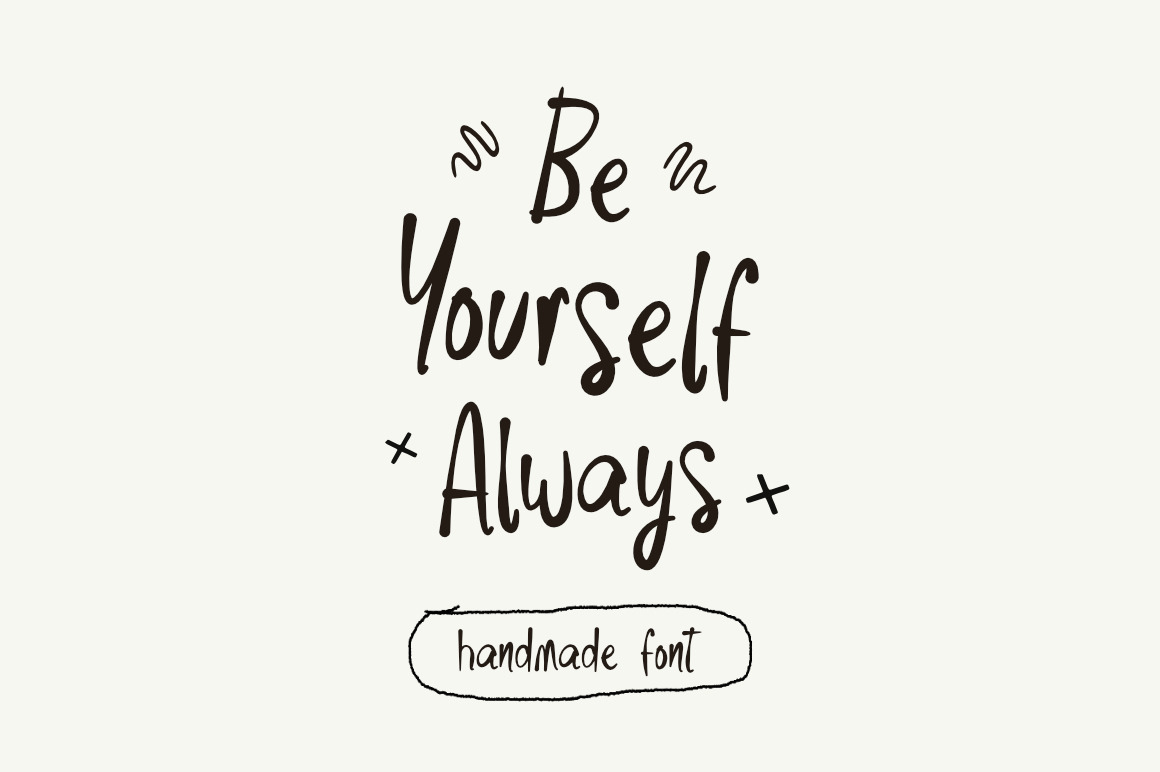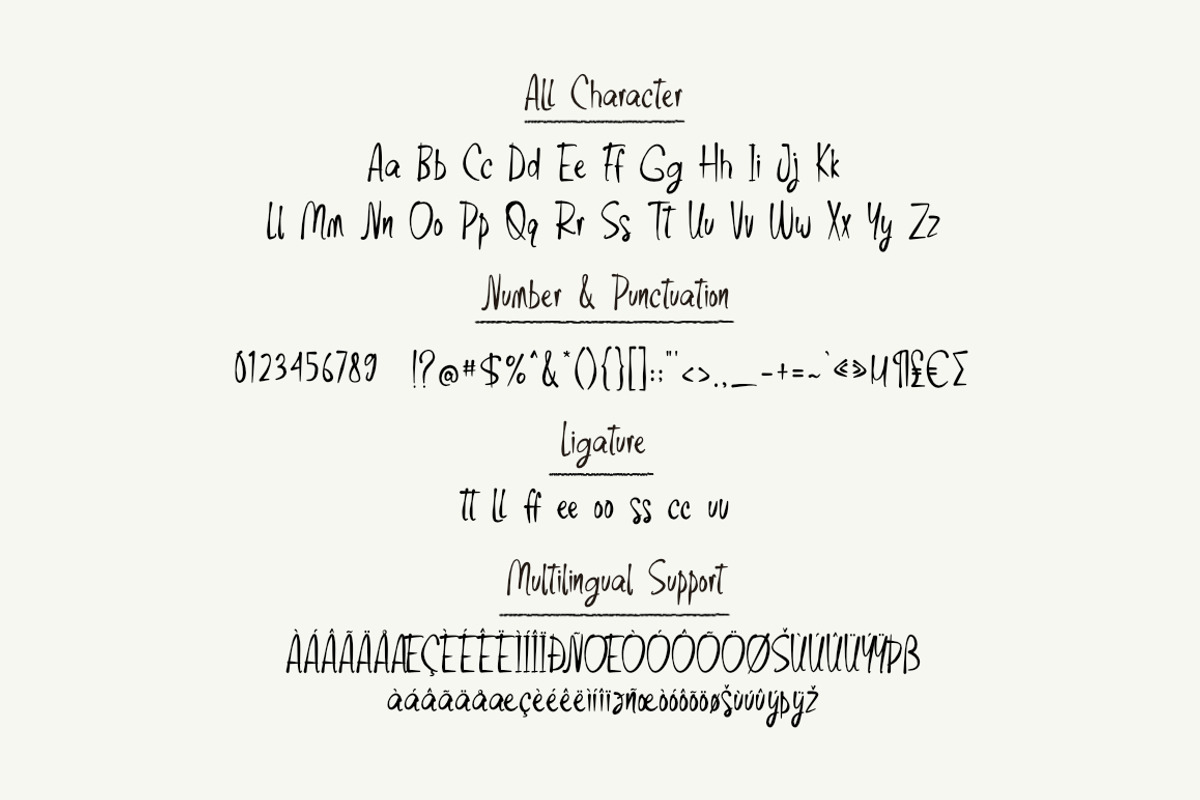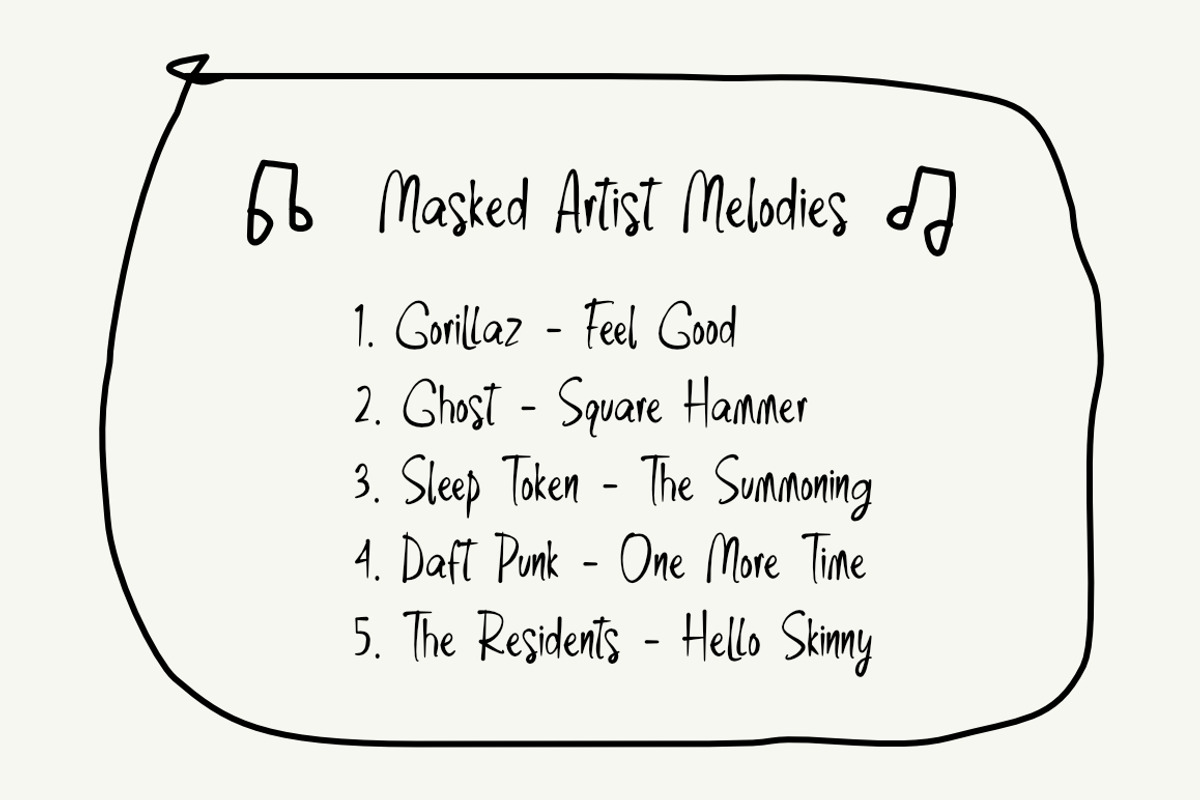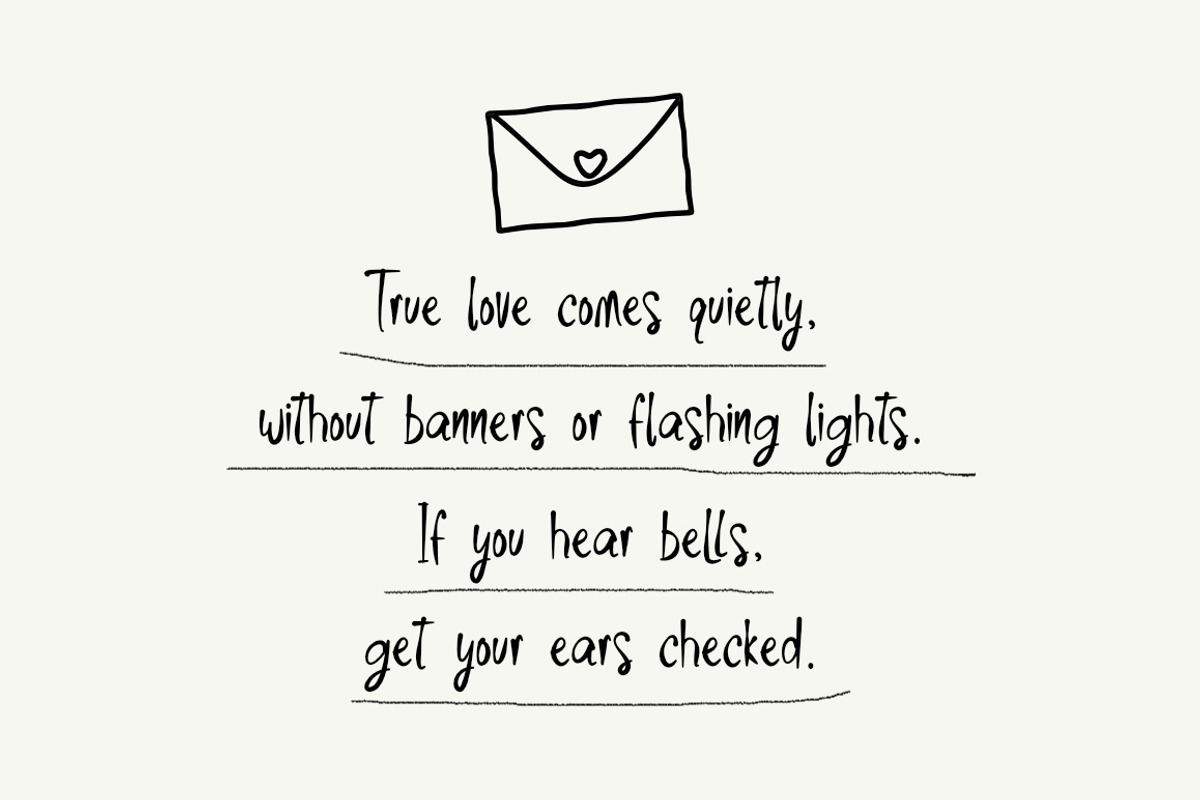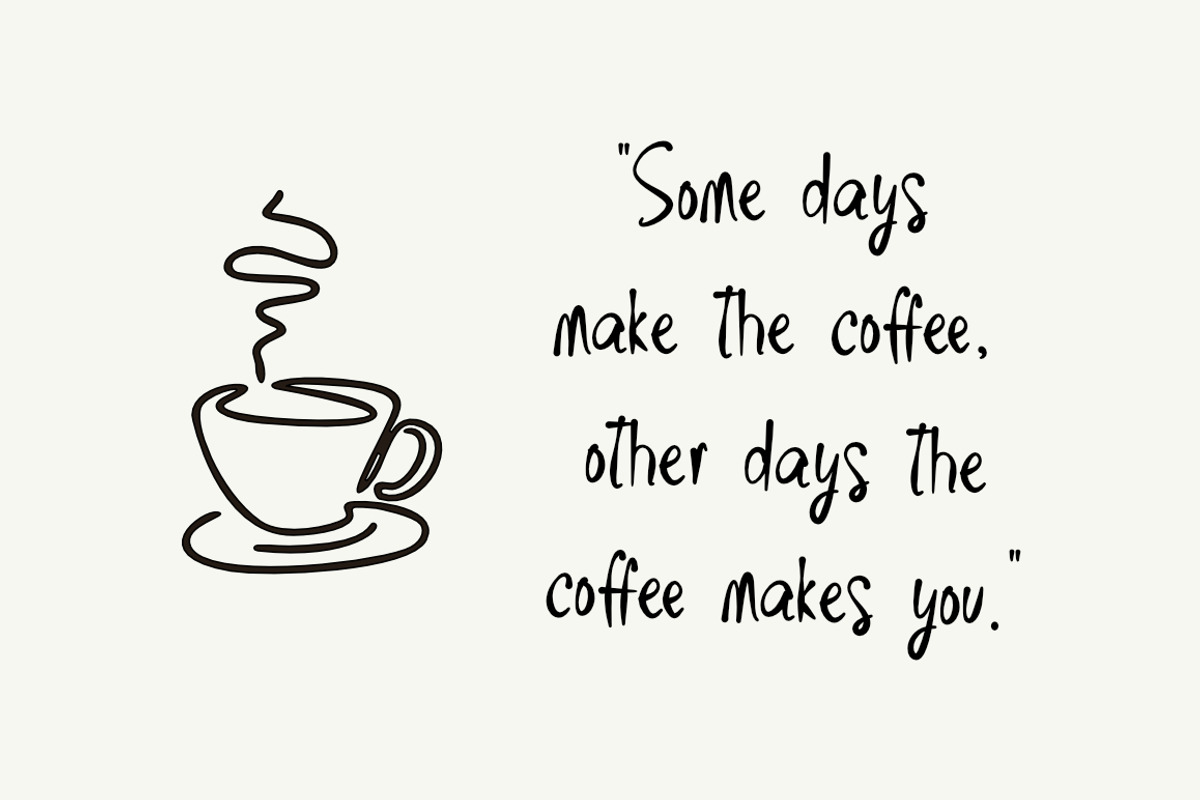
Be Yourself Always - Handmade Font
Be Yourself Always Font, a charming handwritten font designed to look like real pen-on-paper writing. With its organic strokes and slightly imperfect lines, Be Yourself Always brings a personal, human touch to any digital project. It’s the ideal choice for designers looking for a "casual yet neat" aesthetic that feels approachable and sincere.
Whether used for quotes design, posters, branding, journal design or logo, Be Yourself Always Font adds a touch of enthusiasm and originality, making every word feel like the beginning of an exciting journey.